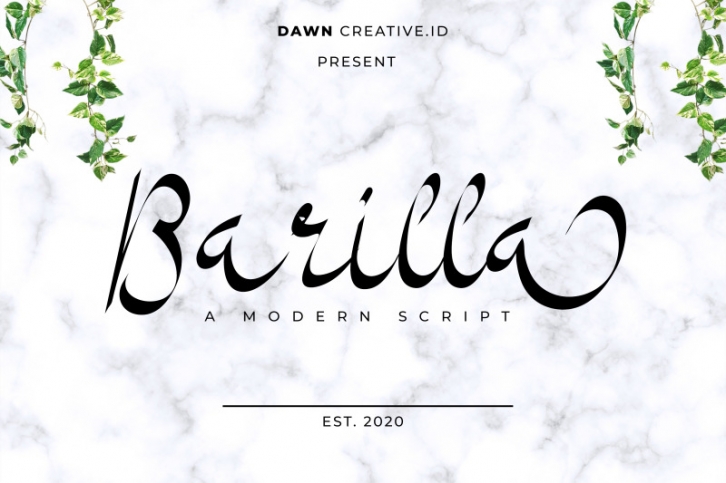
Barilla is a modern script. It has beautiful characters, alternate stylish, and elegant ligature. Barilla will be matched for calligraphy, wedding, decorations, invitations, and many more.
- Stylish Alternates